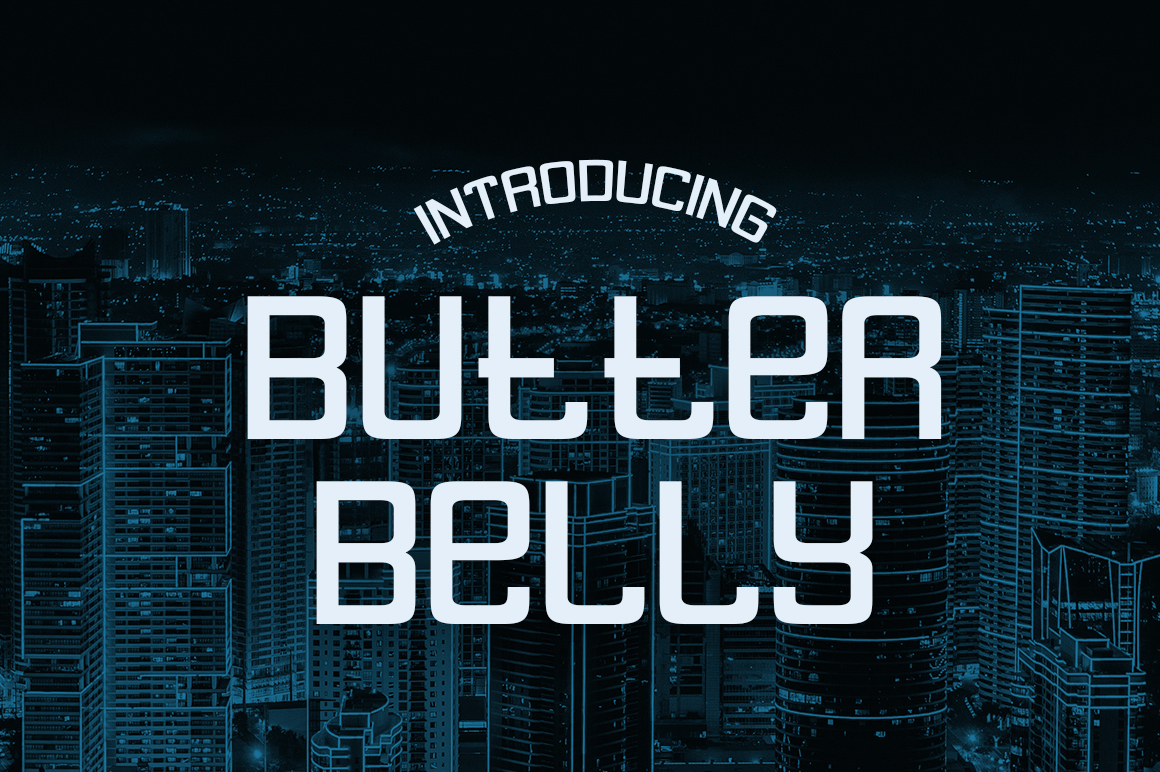
Butterbelly is a squared, modular display font with a soft, streamlined aesthetic. This free sans serif digital display font is perfect for a wide range of modern/futuristic creative projects, from Typodermic.